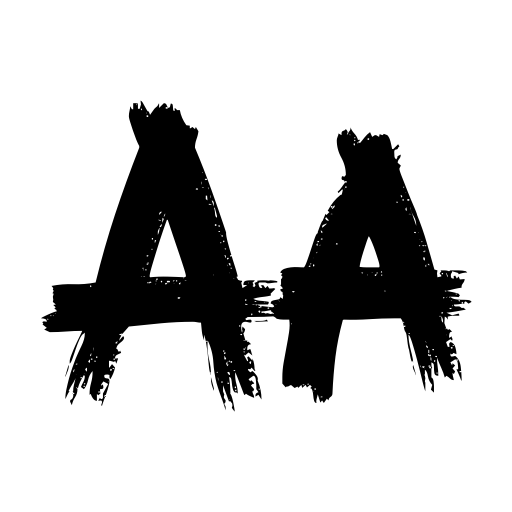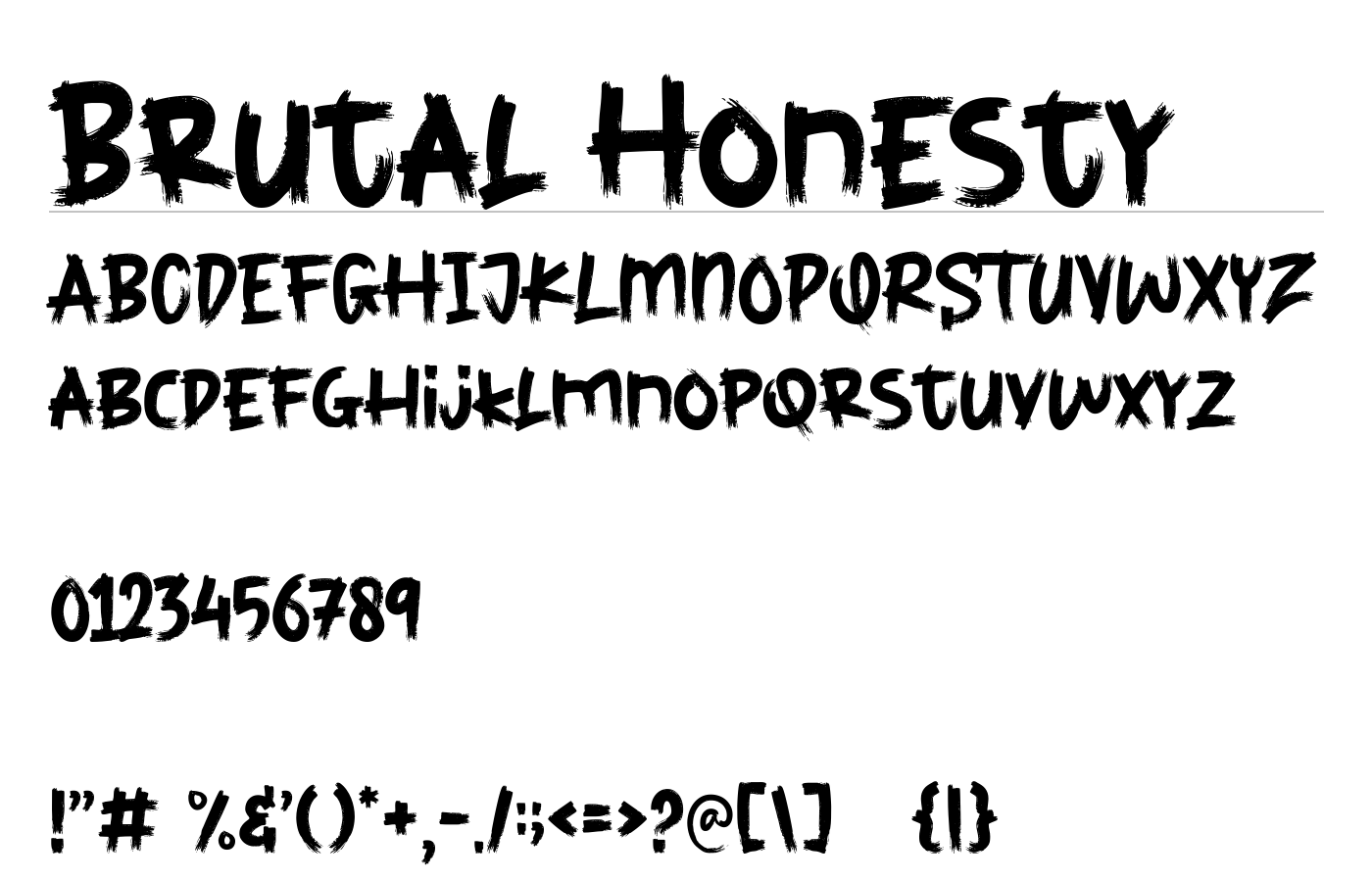
Brutal Honesty is a bold, expressive hand-drawn sans serif font with rough, brushstroke textures that give it an edgy, raw personality. Its irregular shapes and high contrast between thick and thin strokes create a dynamic, energetic feel, making it perfect for designs that want to stand out with attitude and informality. This font works especially well for posters, branding, and creative projects where a strong, rebellious voice is needed.
Brutal Honesty Font
About Brutal Honesty Font
| Font family | Brutal Honesty Font |
| Designer | NH Olivetype |